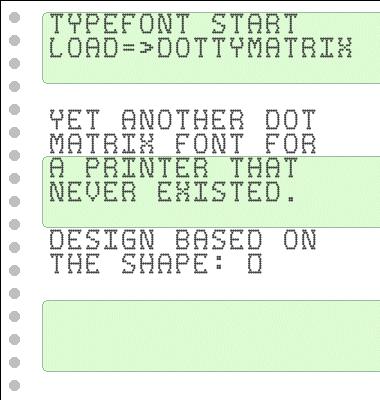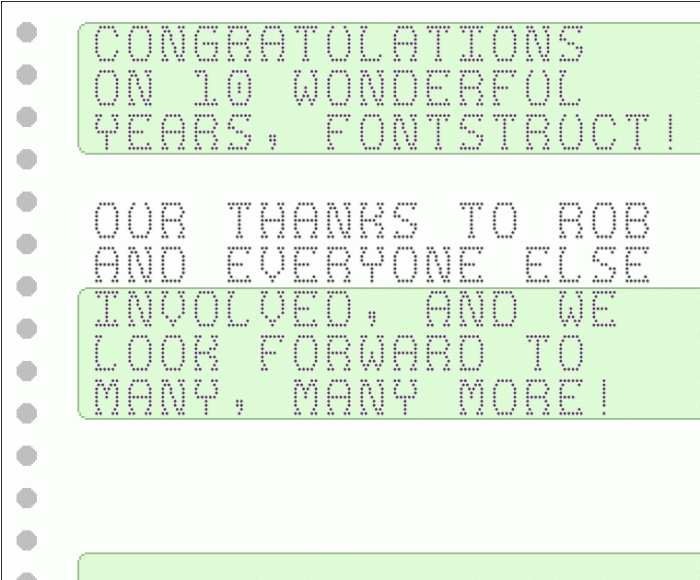
So much better than the brogg standard font style dot matrix printers put on paper in the 80s :D I would have produced inspired texts had the print-outs been this pleasant to read.
Funny! (even in all caps.) Interesting shape (and loose rule of design). I, too, wish the related vintage printers (e.g. at eBay) were able to break their physical rules…^^
@Aeolien & @dpla - Thank you for the kind words!  I haven't been active here lately, so to challenge myself, I used that "odd" shape as the design's starting point.  And this font adheres to the limitations of a true 9-pin printer.  ;^)
Ah? So you know a lot about the H/W limitations of these old devices! (I supposed all the dots were not accessible at the same time, like graphical [ink-jet] printers where the head might move much more, i.e. a lot slower…) Anyway, the more I see "Dotty Matrix", the more I fell comfortable with it. We are in the 1980s, forever!